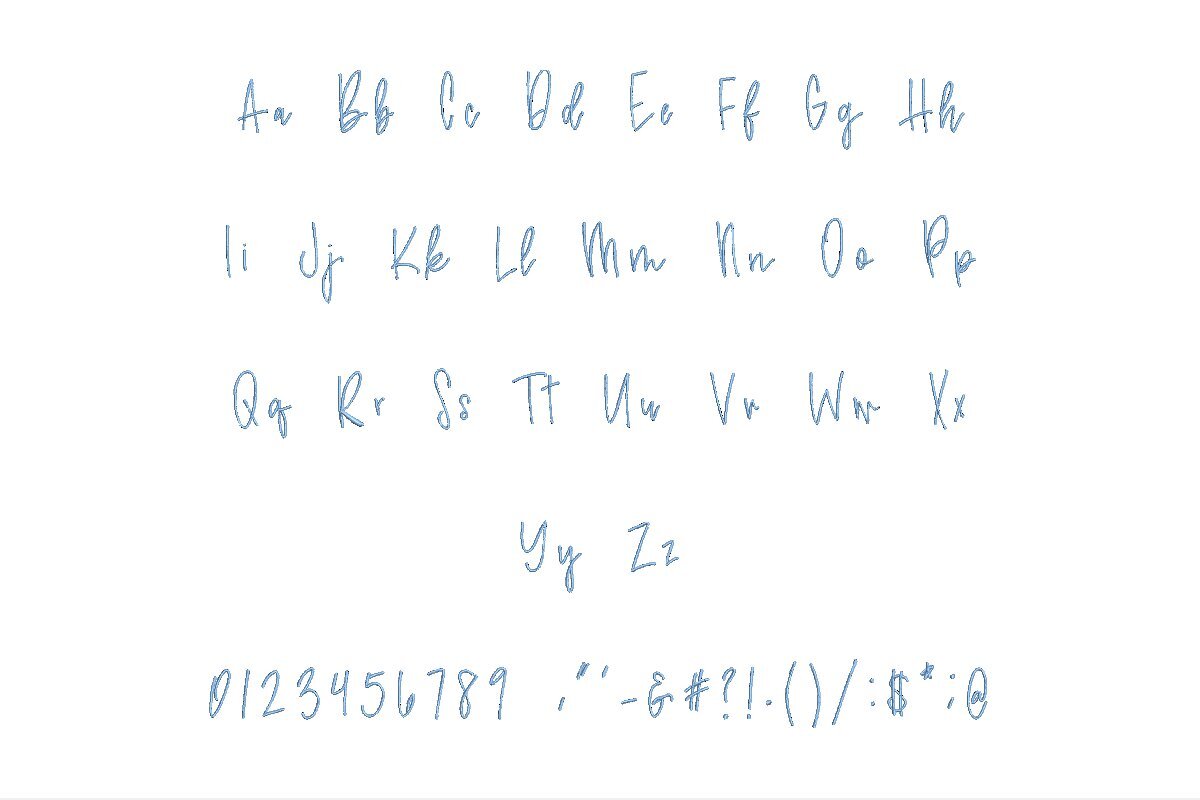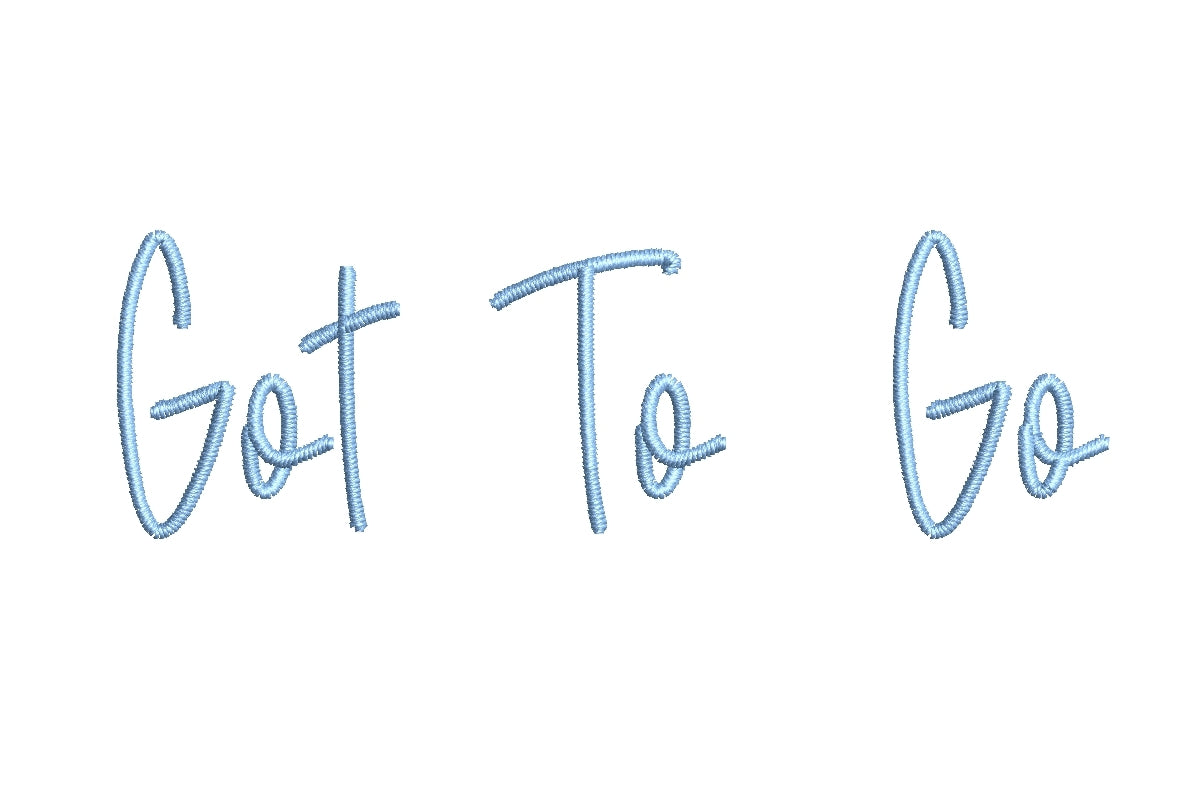
Introducing the Got to Go ESA Font – Your Ultimate Embroidery Solution for Wilcom Studio e4.5.6 and Hatch 3 Versions and Beyond! Enhance your embroidery projects with this versatile, fully compatible typeface. Crafted with precision and creativity in mind, the Got to Go ESA Font seamlessly integrates with Wilcom Studio e4.5.6 and Hatch 3 and higher versions, offering unmatched design flexibility. Whether you're creating logos, monograms, or intricate designs, this font's smooth contours and impeccable stitches will bring your vision to life. Don't miss out on the Got to Go ESA Font – your key to unlocking limitless creative possibilities in embroidery.